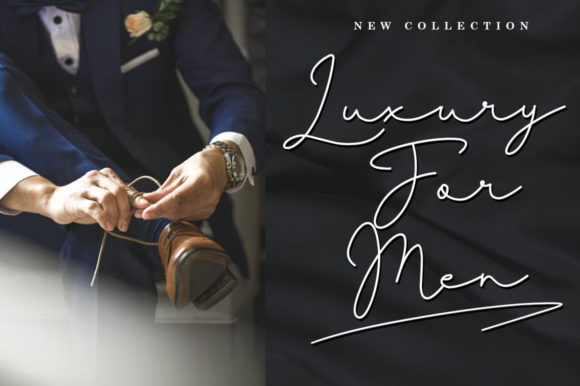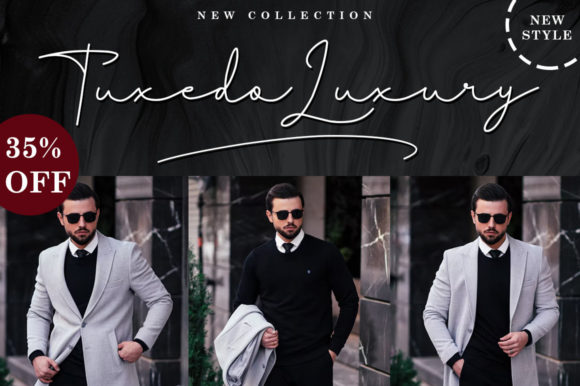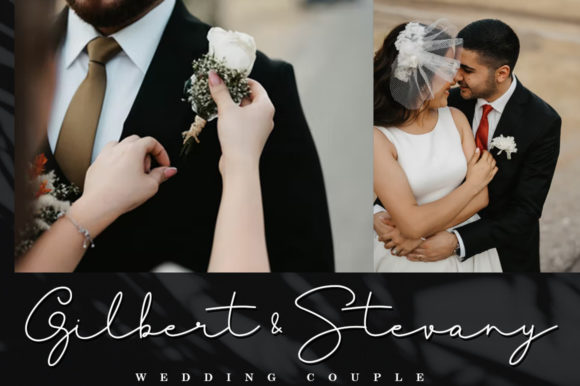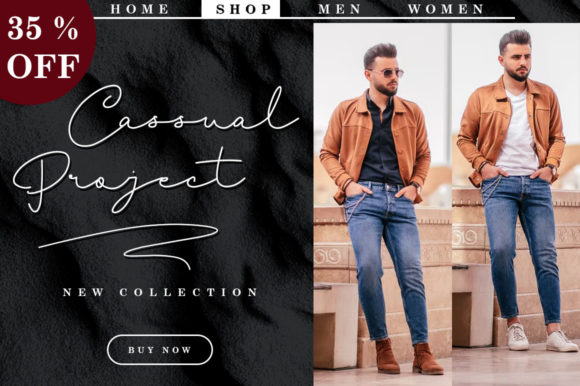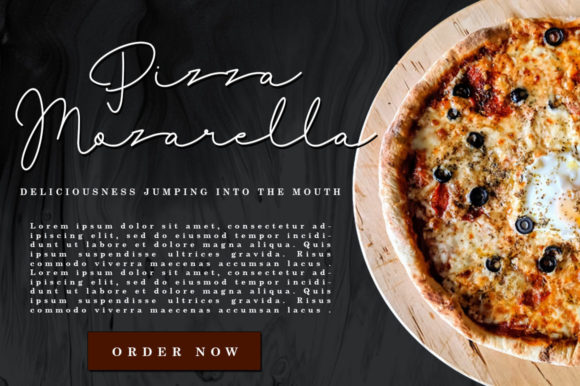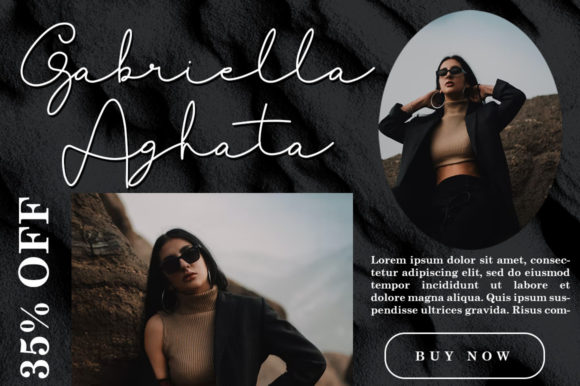
The Designer’s Delight: Franklin Benjamin Font
I’ll never forget the time I was working on a wedding invitation project, and I just couldn’t seem to find the perfect font. The client wanted something elegant, yet modern, and I was determined to deliver. That’s when I stumbled upon the Franklin Benjamin font, and it was love at first sight! 💕
This signature script font has simple, stylish, and adaptable vibes that make it perfect for a wide range of design projects. From wedding invitations to business cards, greetings cards, social media posts, and even wall art, Franklin Benjamin is a versatile font that can elevate any design.
- ✨ Elegant and sophisticated design
- ✅ Highly adaptable to different design projects
- 💫 PUA encoded for easy access to glyphs and swashes
- 🎨 Beautifully crafted with attention to detail
While Franklin Benjamin is an amazing font, there are a few things to keep in mind: 🤔
- ⚠️ Some users may find the font a bit too ornate for certain projects
- ⚠️ May not be suitable for very small font sizes due to intricate details
Franklin Benjamin was designed with the intention of creating a elegant and sophisticated script font that’s perfect for a wide range of design projects. The font is named after two of the most influential designers in history, Benjamin Franklin and Rosalind Franklin, who were known for their contributions to science, art, and literature.
A: PUA (Private Use Area) encoding is a way of encoding fonts that allows designers to access glyphs and swashes easily. This means that you can access all of the glyphs and swashes in Franklin Benjamin with ease, making it a breeze to create beautiful designs.
A: No, Franklin Benjamin is a script font, which means it has a more elegant and cursive feel. It’s perfect for designs that require a touch of sophistication and elegance.